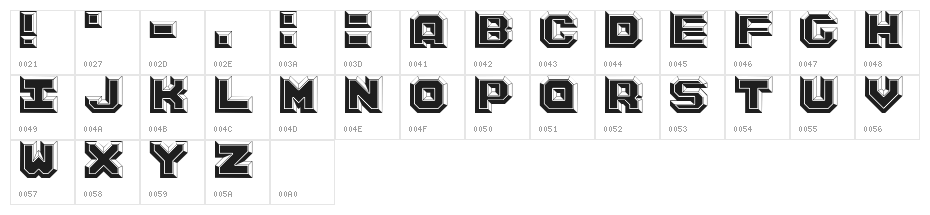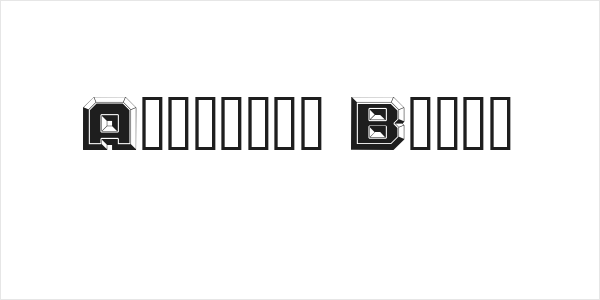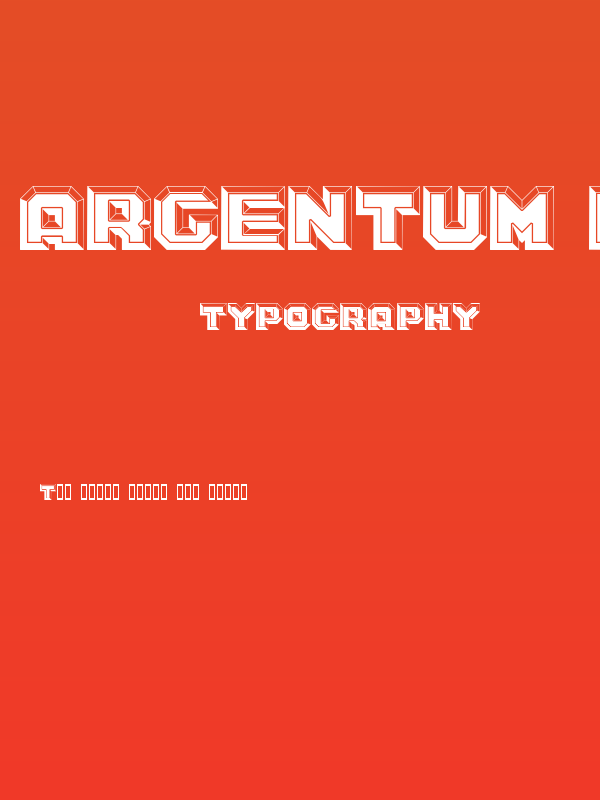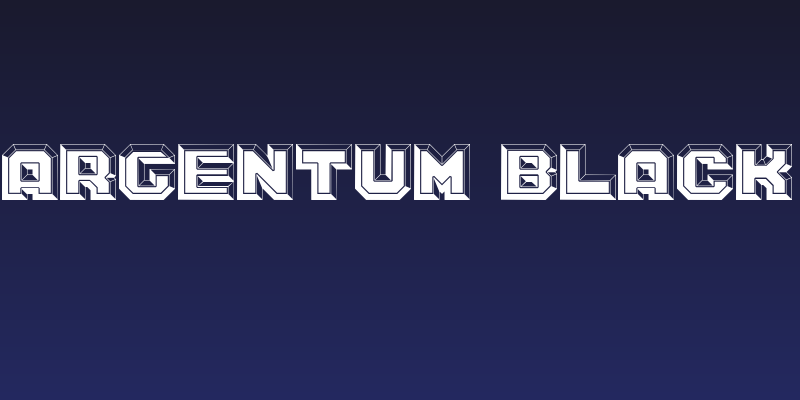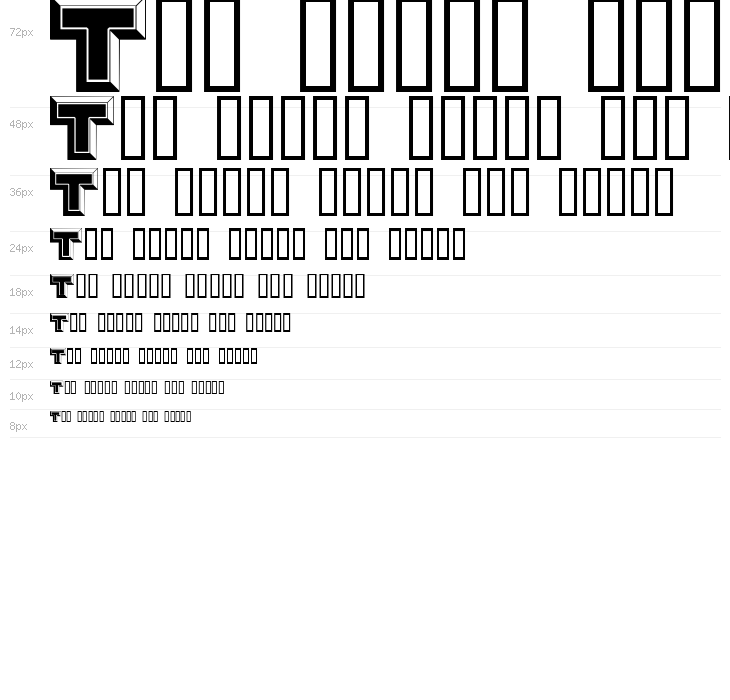
Argentum Black Font
Argentum Black Description
This font features a bold, three-dimensional design with a strong geometric influence. The uppercase letters are characterized by sharp angles and thick strokes, creating a sense of depth and solidity. The font's shadowing effect enhances its dimensionality, making it stand out prominently. The style is reminiscent of industrial or architectural themes, with a modern twist. The absence of lowercase letters and numbers suggests a focus on impactful headlines or titles. The special characters maintain the same bold and structured appearance, ensuring consistency across all glyphs.
Proposed ProjectsIdeal for projects requiring a strong visual impact, such as posters, logos, and signage. Its bold style is perfect for branding materials that need to convey strength and modernity.